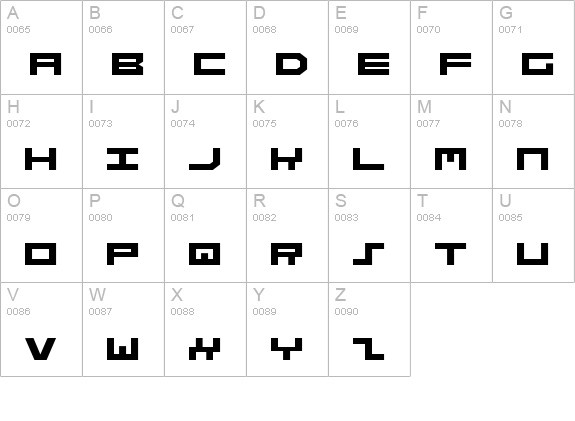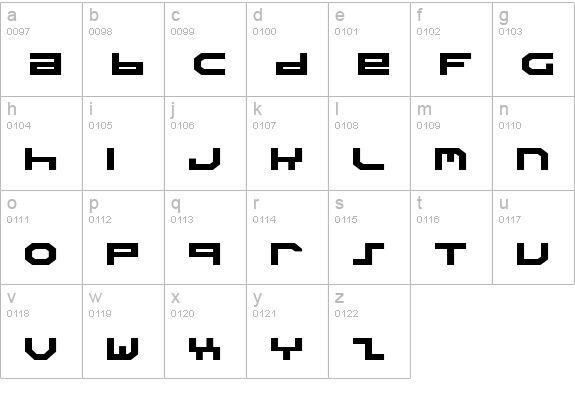
Stuntman Expanded is a distinctive, extended-width variant in the Stuntman typeface family \xE2\x80\x94 well suited to design and typography projects.
Stuntman Expanded font is a dynamic and eye-catching typeface that exudes energy and excitement. With its bold, exaggerated letterforms and striking design, this font is perfect for creating attention-grabbing headlines, posters, and branding materials. The extended width of the letters adds a sense of motion and impact, making it ideal for projects that require a strong visual presence. What makes Stuntman Expanded font even more appealing is that it is available for free download at FontsMarket.com. This means you can easily access this versatile font and use it in your designs without any cost. Whether you're working on a project that needs a touch of daring or looking to make a statement with your typography, Stuntman Expanded font is sure to deliver the impact you're looking for. Download it today and take your designs to the next level!